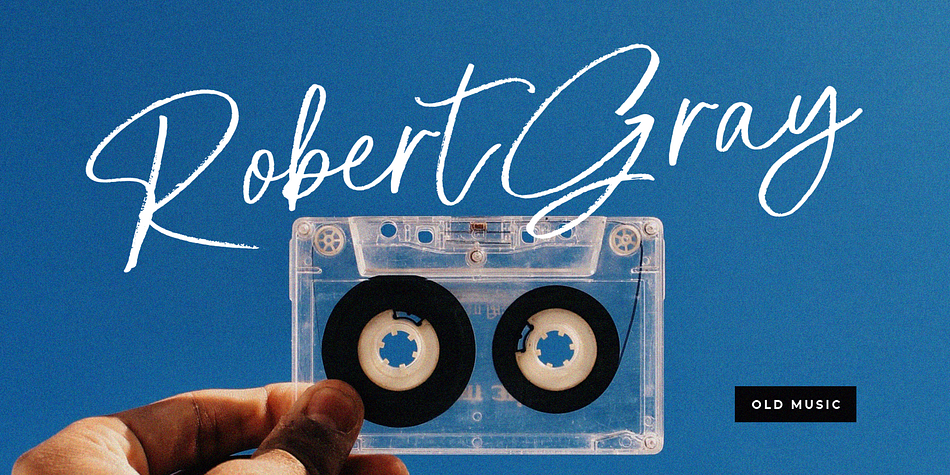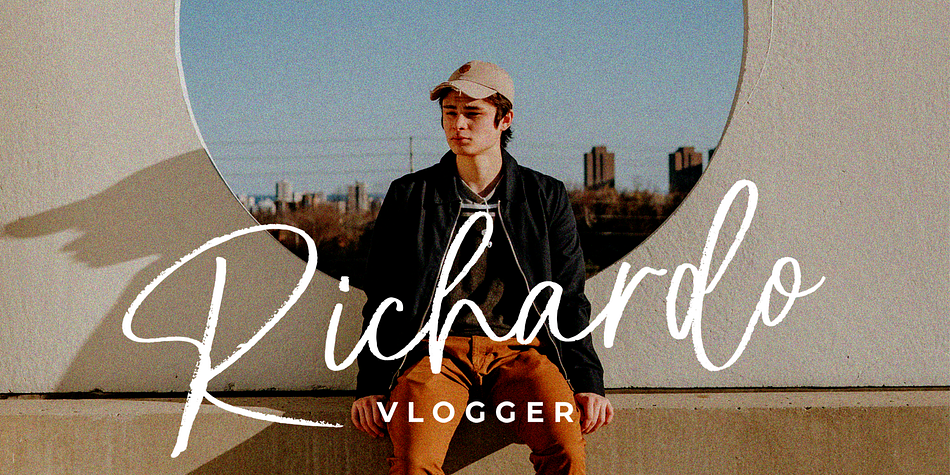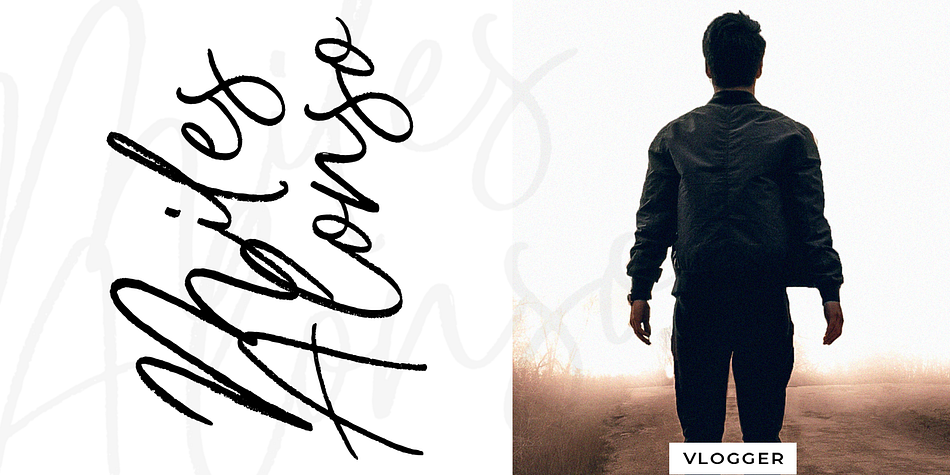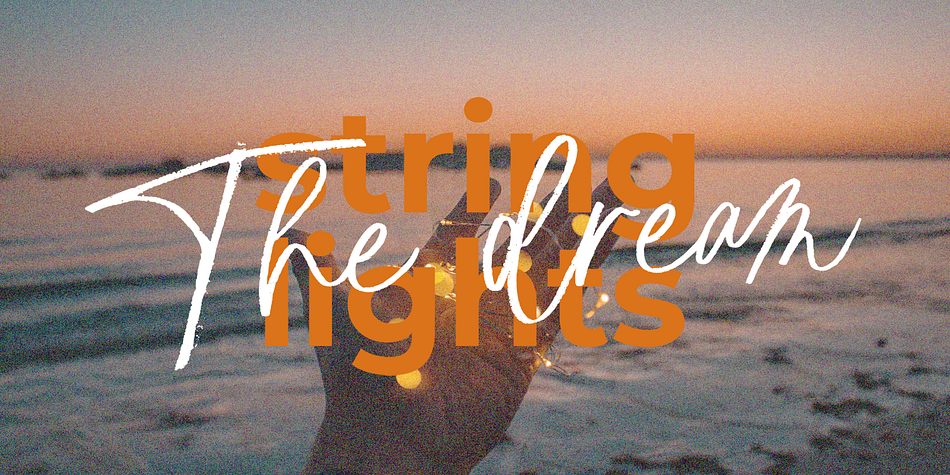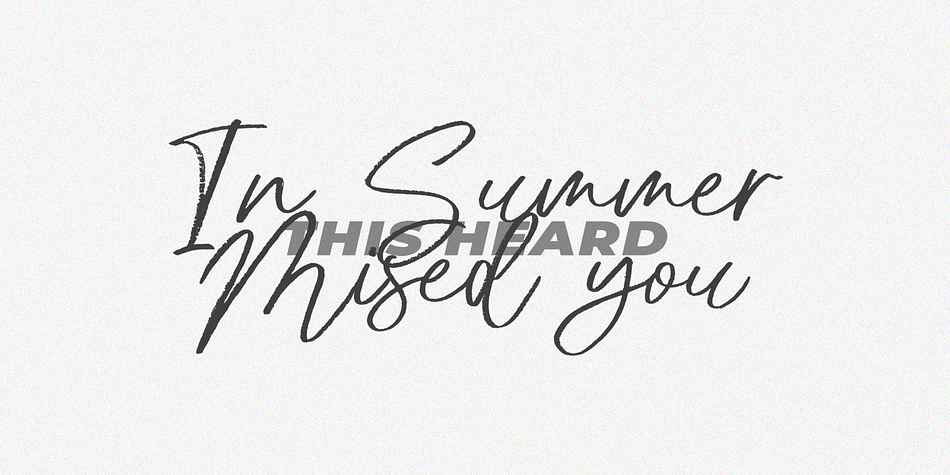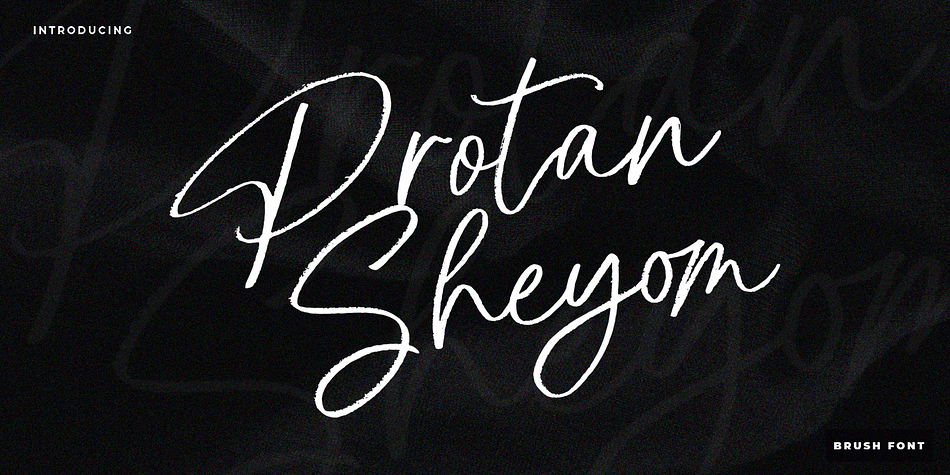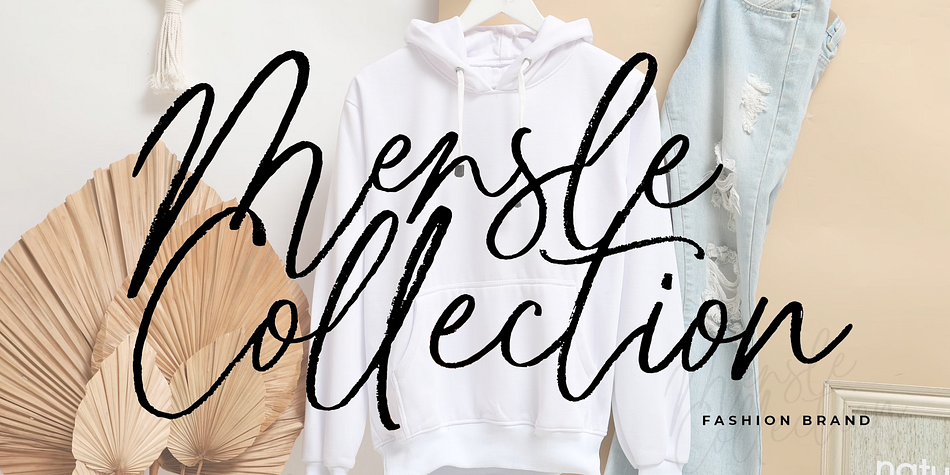
Protan Sheyom
Protan Sheyom is a brush script font family published by Gatype.
Protan Sheyom is a font that was scratched with a brush pen, to get a natural texture, this font will show the characteristics of the hand. This font is perfect for various places such as clothing, posters, title books, stationery designs, quotes, branding, logos, invitations, greeting cards, t-shirts, packaging designs and more.